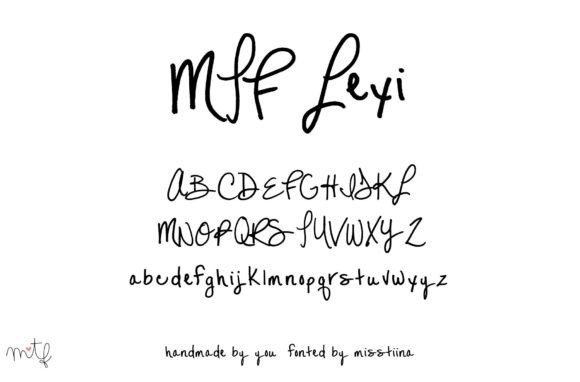
Ignite the passion of creativity with Lexi Font, a striking handwritten font that captures the essence of natural beauty. Crafted by the talented Miss Tiina, Lexi Font is an ode to individuality, transforming your digital canvas into a masterpiece. Embrace the allure of its enchanting strokes, perfectly suited for crafting heartfelt wedding invitations, exuberant birthday cards, distinctive thank you notes, and captivating branding materials. Let your imagination soar as you witness the seamless blend of artistry and functionality in Lexi Font.
Unleash the creative force within you and bask in the glory of Lexi Font's enchanting aura. Its enchanting curves and expressive lines are meticulously designed to stir emotions and captivate audiences. Each letter dances across the screen with grace and elegance, leaving a trail of visual delight. Lexi Font is not just a font; it's an invitation to express your authentic self through the art of typography.
Transport yourself to a realm of endless possibilities with Lexi Font. Its versatility knows no bounds, seamlessly adapting to any design project, whether you're creating logos that exude professionalism, social media graphics that pop, or website designs that captivate. With Lexi Font as your creative companion, your designs will radiate a touch of elegance that sets them apart from the ordinary.